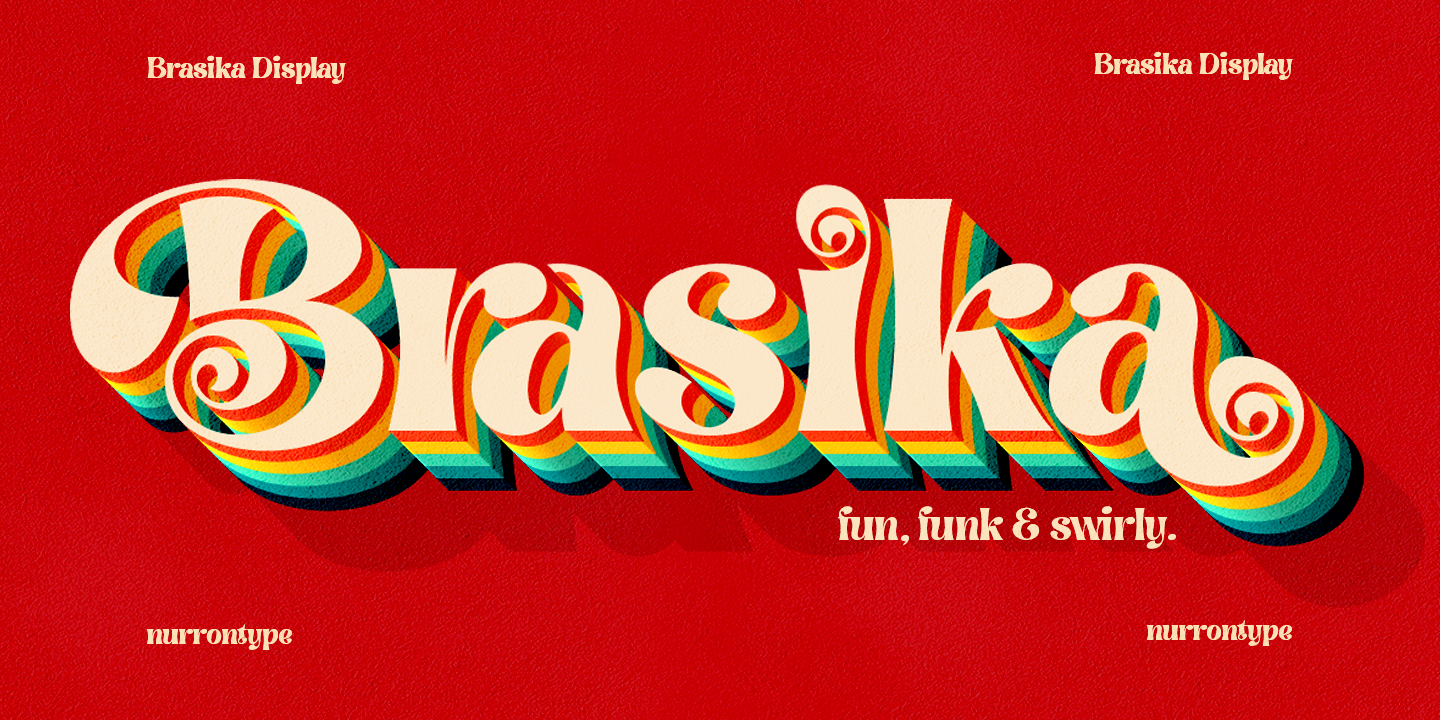
Brasika Display Font is perfect for striking design projects including festival poster headers, concert venue signage, entertainment branding campaigns, event promotion materials, theater marquee displays, music album artwork, vibrant social media graphics, and dynamic advertising campaigns. This captivating typeface excels in nightclub branding, cultural event promotions, artistic performance materials, creative conference signage, and projects that demand bold visual impact and memorable presence.
What makes Brasika Display Font exciting is its spectacular display character that perfectly captures the essence of visual drama and commanding presence. The font features bold, distinctive letterforms with powerful proportions that reflect the energy and excitement of live entertainment and cultural celebrations. Its striking design elements embody the spirit of artistic performance and visual spectacle, making it perfect for projects that need to convey excitement, creativity, and unforgettable impact. The carefully crafted dramatic curves create maximum visual presence while maintaining excellent readability at large sizes.
Brasika Display Font comes in multiple family variations including regular, bold, condensed, and expanded styles. Each weight maintains the distinctive display character while offering different levels of visual drama and spectacular presence. The font family includes performance alternates, dramatic ligatures, and display variations that provide designers with comprehensive options for creating truly memorable and visually commanding typographic compositions that steal the spotlight.
Whether you're designing entertainment branding, creating event marketing materials, or developing spectacular promotional graphics, Brasika Display Font Free Download provides the perfect typographic stage for projects that celebrate visual drama and artistic excellence. This extraordinary typeface transforms ordinary text into compelling expressions of creative energy and spectacular entertainment. Download this incredible font today and spotlight your design projects with the bold drama and unforgettable presence that captures audiences and creates lasting visual memories.